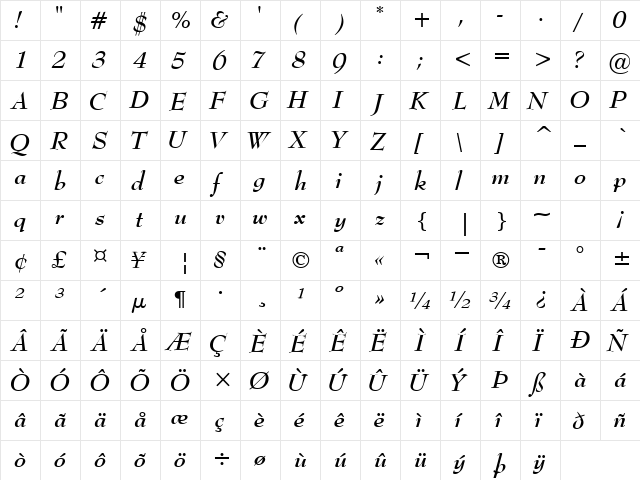
MonitorSSK Bold Italic
Design Context for MonitorSSK Typeface
MonitorSSK is a composed and adaptable typeface that performs quietly and consistently across a wide range of design contexts. Its italic angle brings a sense of urgency and motion to the letterforms. Its bold stroke weight gives it real presence on the page.
Pro Tip: Use MonitorSSK for emphasis, pull quotes, and subheadings where its slanted energy can add rhythm to the layout.